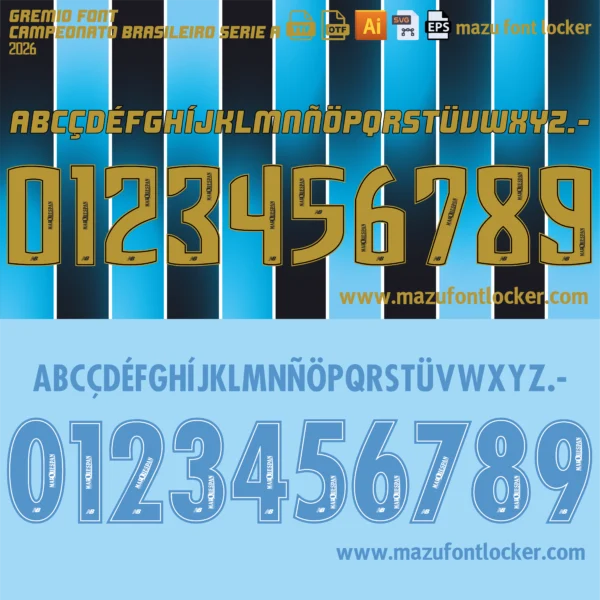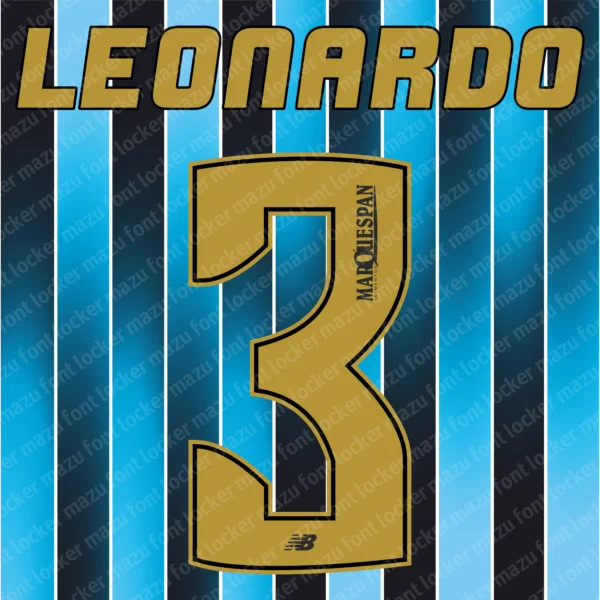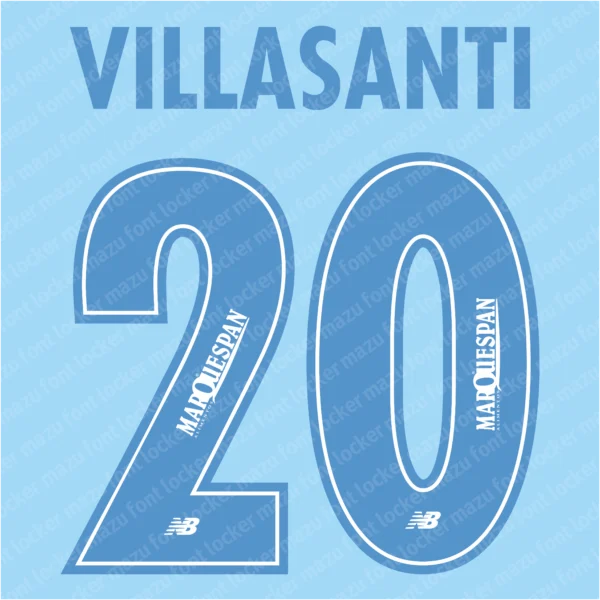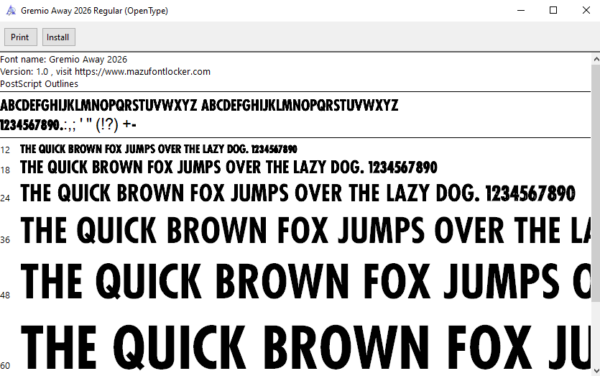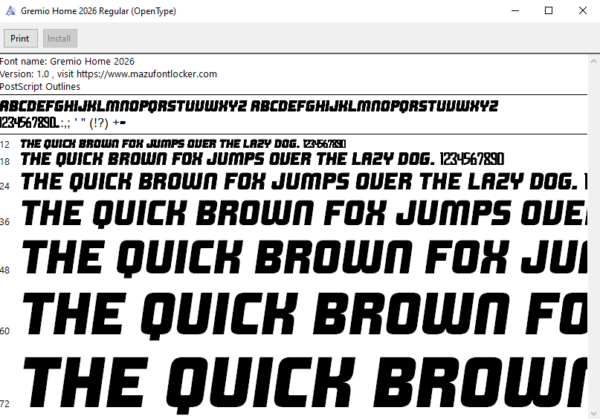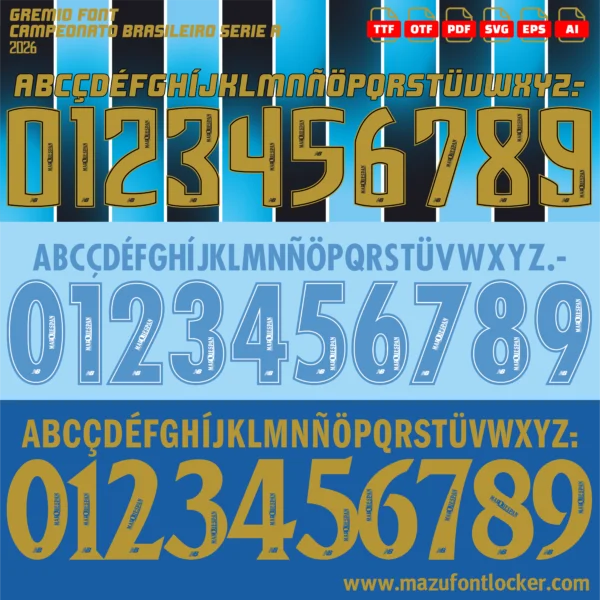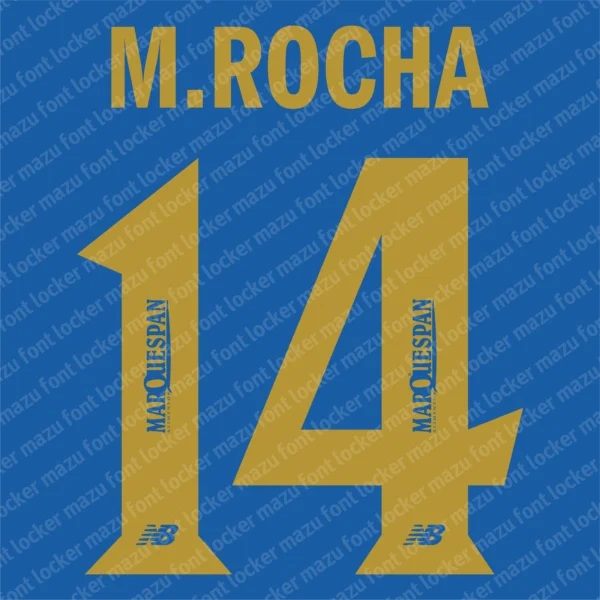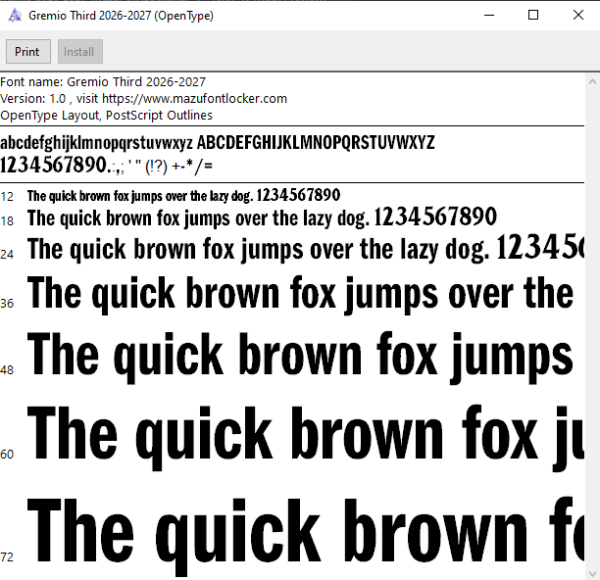
Gremio 2026-2027 Font Vector – Stunning Futuristic Legendary Masterpiece
Download the Gremio 2026-2027 Font Vector (AI, EPS, SVG, PDF, OTF, TTF) and unleash the iconic, bold, and explosive match typography from Grêmio’s legendary 2026-2027 season. This font captures the classic Blue, Black & White lettering, reimagined with sharp modern power and authentic Tricolor Gaúcho pride.
Channeling the fearless Imortal spirit with raw Brazilian football passion, it delivers a powerful fusion of historic club heritage and timeless Gaúcho intensity. Perfect for premium jersey mockups, football designs, and collector-worthy Gremio 2026-2027 art.
Grêmio 2026-2027 Font Vector – Tricolor Gaúcho Typeface
The Grêmio 2026-2027 Font Vector is a premium typeface that faithfully recreates the iconic lettering from Grêmio’s 2026-2027 season jerseys. This vector font kit captures the bold, modern athletic style that represents one of Brazil’s most passionate and successful football clubs.
Designed for football designers, graphic artists, and passionate Grêmio fans, the Grêmio 2026-2027 Font Vector delivers authentic aesthetics perfect for jersey mockups, fan merchandise, posters, social media content, and dynamic football campaigns.
Why Choose Grêmio 2026-2027 Font Vector
This font set is highly valued for its precision and premium quality. Every letter and number has been meticulously recreated to match the official typography used on Grêmio’s 2026-2027 shirts. It perfectly blends Brazilian football passion with contemporary design excellence.
The letterforms feature bold, athletic proportions with a slightly condensed and dynamic stance. The strong, clean strokes deliver powerful visual presence while maintaining excellent readability — ideal for both large squad numbers and detailed graphic applications.
The numerals showcase modern football styling with sharp contours, balanced weight, and authentic athletic proportions, ensuring outstanding results across print and digital media.
- Full uppercase A–Z and numbers 0–9 in the official 2026-2027 Grêmio style
- Special Grêmio crest glyph for authentic number detailing
- Multilingual Latin support with diacritics
- Includes precise crest placement used under player numbers on the 2026-2027 kit
Grêmio 2026-2027 Season
Grêmio Foot-Ball Porto Alegrense enters the 2026-2027 season with renewed ambition and the legendary Tricolor Gaúcho spirit. One of Brazil’s biggest clubs, Grêmio continues to honor its rich history of domestic and international success, including multiple Copa Libertadores titles and Brazilian championships.
The 2026-2027 kit represents a new chapter for the club, combining tradition with contemporary design. Known for its passionate fanbase (the “Gremistas”) and iconic Arena do Grêmio, the club remains a powerhouse in Brazilian football. This season’s jersey lettering embodies the strength, pride, and fighting spirit that define Grêmio.
The Grêmio 2026-2027 Font Vector is an independently developed typeface package. It has been carefully crafted to replicate the official lettering from Grêmio’s 2026-2027 season jersey. Perfect for artistic projects, fan creations, and football design enthusiasts.